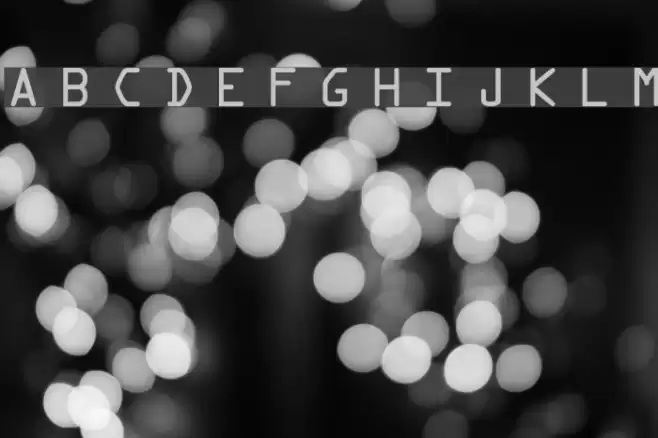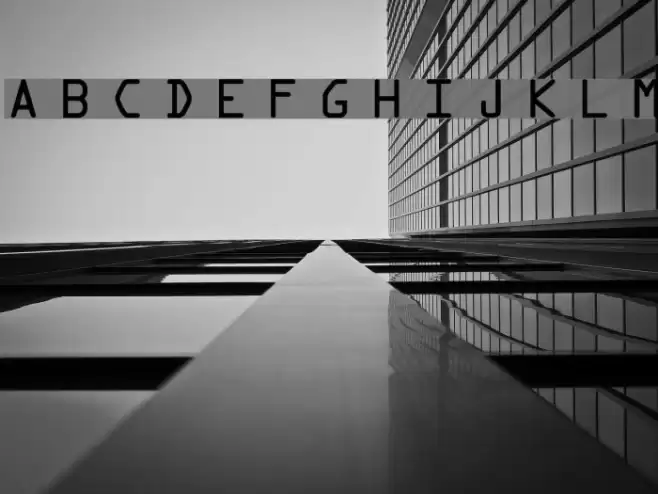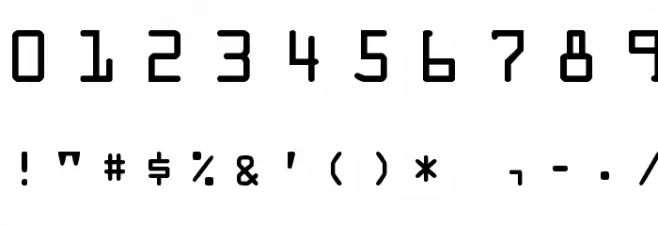
Microscan A Font
Microscan A Description
This font features a modern, geometric design with a distinct digital aesthetic. The characters are constructed with clean, straight lines and sharp angles, giving it a technical and futuristic appearance. Uppercase and lowercase letters maintain a uniform width, contributing to a monospaced feel, although it is not strictly monospaced. The numerals are bold and clear, making them easily readable. Special characters are designed to match the overall style, ensuring consistency across all glyphs. The font's simplicity and clarity make it suitable for digital displays and interfaces, where legibility is crucial.
A modern, geometric font with a digital and futuristic design from Serif fonts.
- Proposed Projects: Ideal for digital interfaces, coding environments, tech branding, and futuristic design projects.
- Overall Style: Modern, Technical
- Use Case: Digital displays, Interfaces, Tech branding